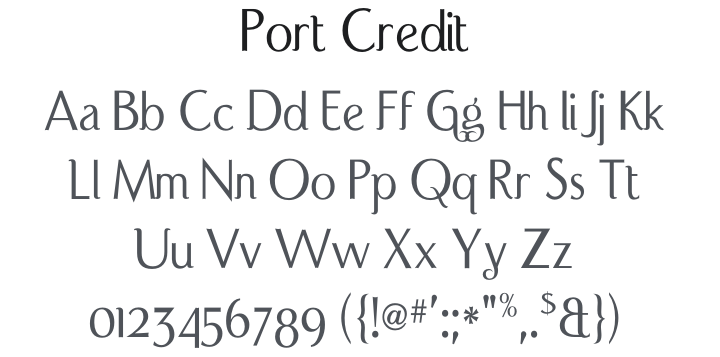
Port Credit Font
About Port Credit
Port Credit is an elegant display serif typeface with graceful letterforms featuring distinctive teardrop terminals and gently flared stroke endings — giving it a warm Art Nouveau sophistication. Perfect for editorial headlines, book covers, upscale branding, wedding stationery, and any design needing timeless, quietly distinguished personality.